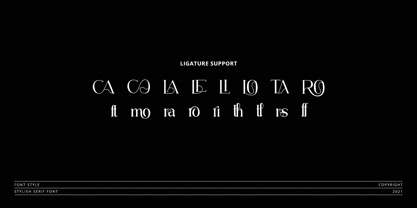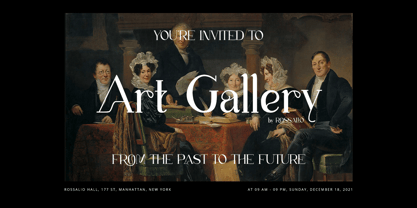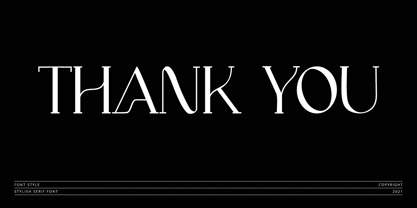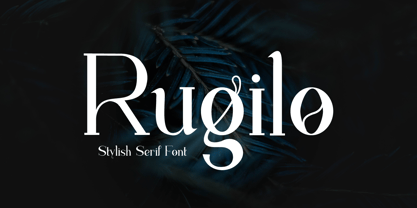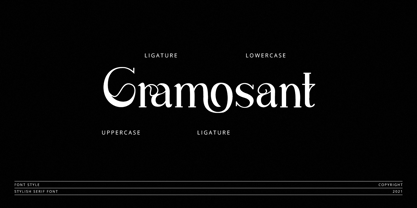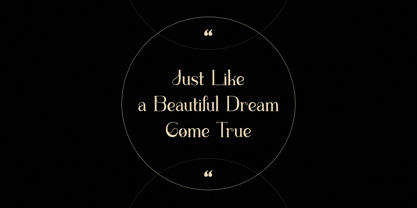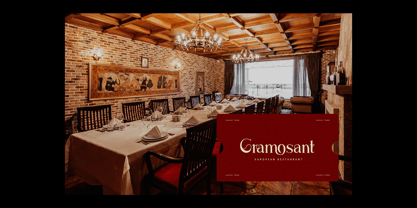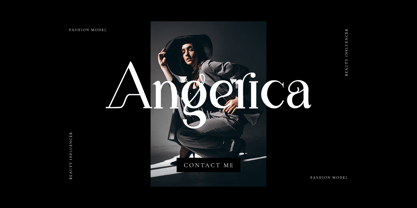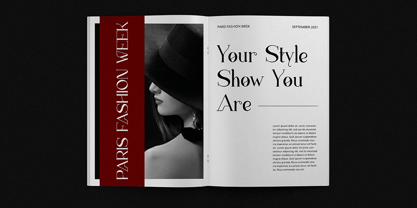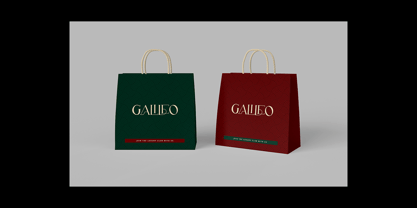
Rugilo
by Rockboys Studio
The Rugilo Font Family was designed by Hayinah and published by Rockboys Studio. Rugilo contains 1 styles.
Rugilo is a clean serif font family that is minimal and simple. This is a modern and unique font set that is sure to amplify all your design and typography needs.
Designers: Hayinah Hayinah
Publisher: Rockboys Studio
Foundry: Rockboys Studio